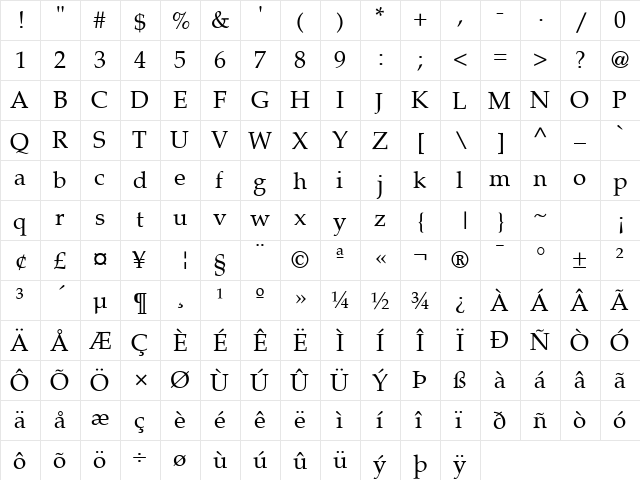
LatinoPalSH Roman
Design Context for LatinoPalSH Typeface
LatinoPalSH offers clean, dependable letterforms without strong stylistic allegiance, making it a practical choice for designers who need flexibility.